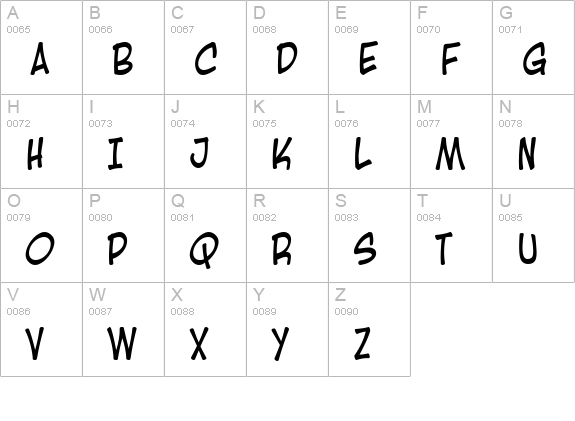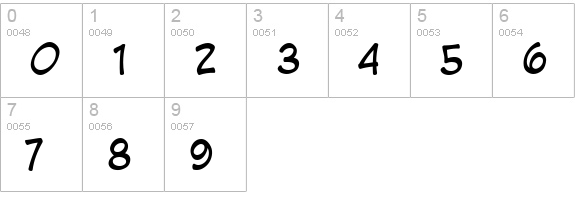
Blambot Casual font is a charming and versatile typeface that exudes a casual and friendly vibe. With its smooth and flowing letterforms, this font is perfect for adding a playful touch to your designs. Whether you're working on a fun project or just looking to add some character to your text, Blambot Casual is sure to impress. The best part? Blambot Casual font is completely free to download at FontsMarket.com. So go ahead and give your designs a fresh and modern look with this delightful typeface. Let your creativity flow with Blambot Casual!